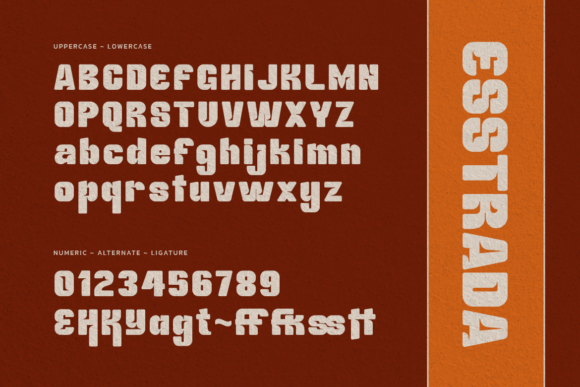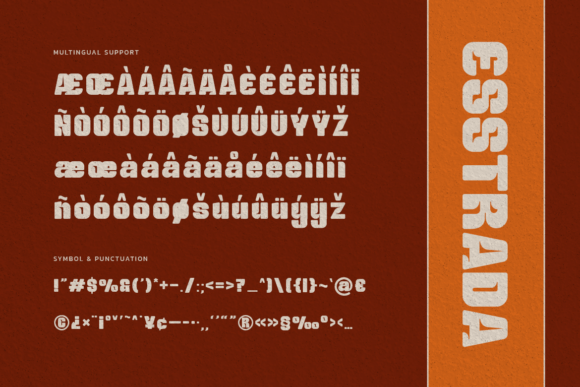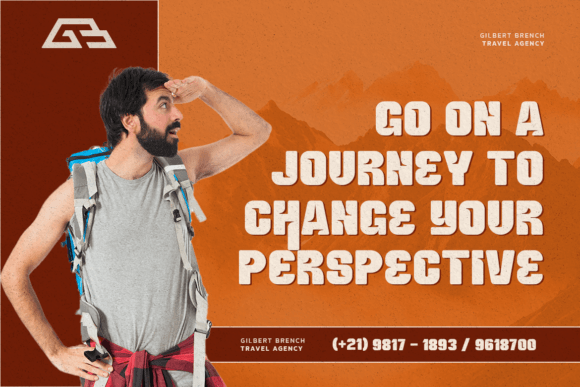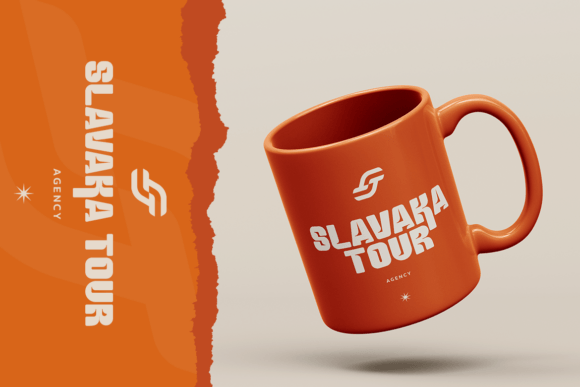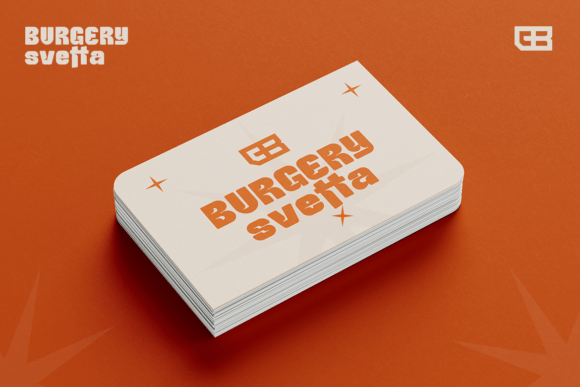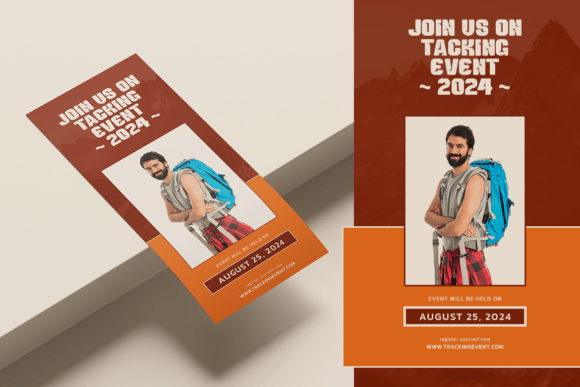
Introducing Esstrada Font: The Ultimate Typeface for Bold Designs
In the world of typography, a font can make or break a design. It’s the foundation upon which the entire visual identity is built. For designers and crafters looking to make a statement, Esstrada Font is the perfect solution. This bold, dynamic typeface is designed to demand attention, infusing robust letterforms and sharp, assertive lines that breathe life into headlines, posters, logos, and brand communication.
The Power of Esstrada
Esstrada Font radiates authority and dynamism, making it the perfect ally for creations that exude a contemporary, daring vibe. Its unforgettable visual impact translates seamlessly across print and digital platforms, ensuring that your design isn’t just seen, but makes a lasting impression. Whether you’re working on a logo, brochure, or website, Esstrada Font is the perfect choice for designers who want to make every word count.
Key Features of Esstrada Font
- Bold and Dynamic: Esstrada Font features robust letterforms and sharp, assertive lines that demand attention.
- Versatile: Perfect for headlines, posters, logos, and brand communication, Esstrada Font is a versatile typeface that can be used across various design projects.
- Contemporary and Daring: Esstrada Font exudes a contemporary, daring vibe, making it perfect for designers who want to create bold and eye-catching designs.
- Seamless Translation: Esstrada Font translates seamlessly across print and digital platforms, ensuring that your design looks great everywhere.
Why Choose Esstrada Font?
With so many typefaces available, why choose Esstrada Font? The answer lies in its unique combination of boldness, dynamism, and versatility. Esstrada Font is not just a typeface; it’s a design statement. It’s perfect for designers who want to create designs that stand out from the crowd and make a lasting impression.
Use Cases for Esstrada Font
Esstrada Font is perfect for a wide range of design projects, including:
- Logos: Create a bold and memorable logo that makes a lasting impression.
- Headlines: Use Esstrada Font to create attention-grabbing headlines that draw the reader in.
- Posters: Create eye-catching posters that showcase your brand’s personality.
- Brand Communication: Use Esstrada Font to create a consistent visual identity across all your brand communication channels.
Tips for Using Esstrada Font
To get the most out of Esstrada Font, here are some tips to keep in mind:
- Use it boldly: Esstrada Font is designed to be bold and attention-grabbing, so don’t be afraid to use it in large sizes.
- Experiment with colors: Esstrada Font looks great in a wide range of colors, so experiment with different color combinations to find the one that works best for your design.
- Pair it with other fonts: Esstrada Font can be paired with other fonts to create a unique and interesting visual identity.
In conclusion, Esstrada Font is a bold, dynamic typeface that’s perfect for designers who want to make a statement. With its robust letterforms, sharp lines, and versatile design, Esstrada Font is the perfect choice for a wide range of design projects. Whether you’re working on a logo, headline, poster, or brand communication, Esstrada Font is the perfect ally for creating designs that exude a contemporary, daring vibe. So why wait? Harness the power of Esstrada Font and make every word count!